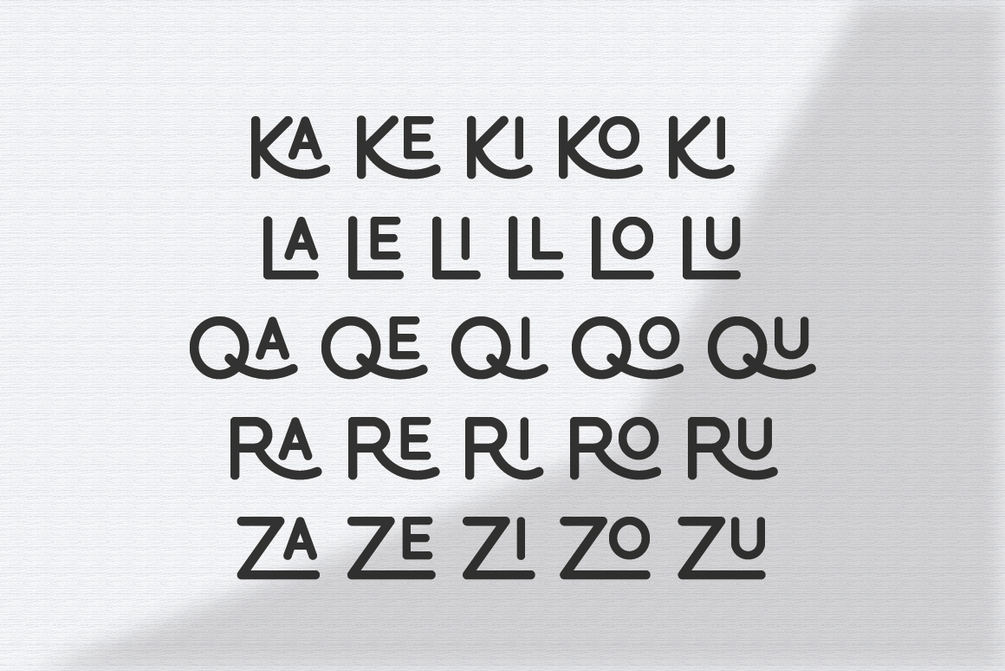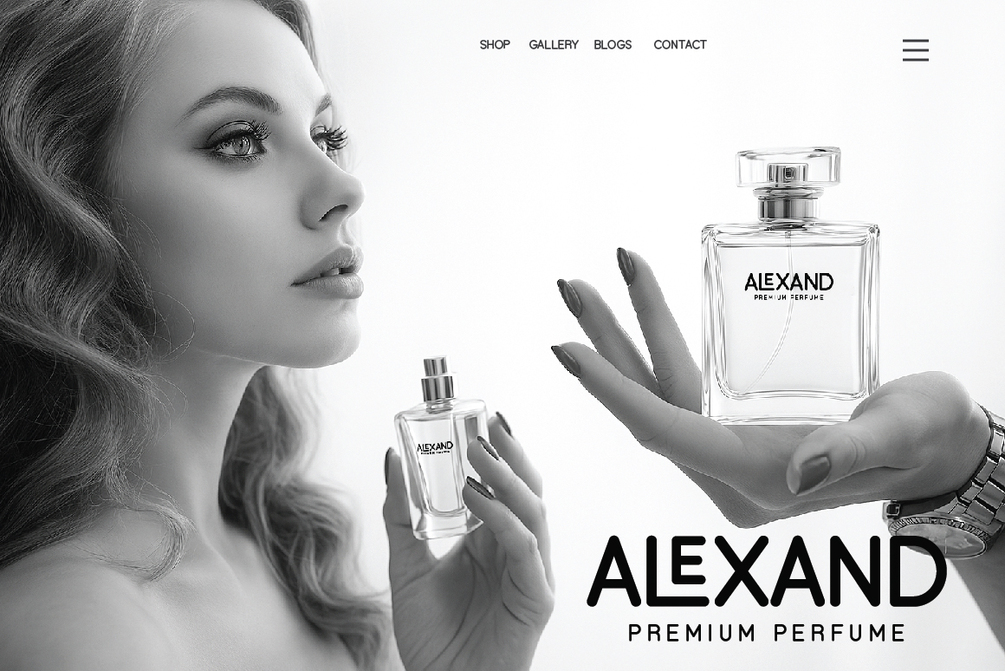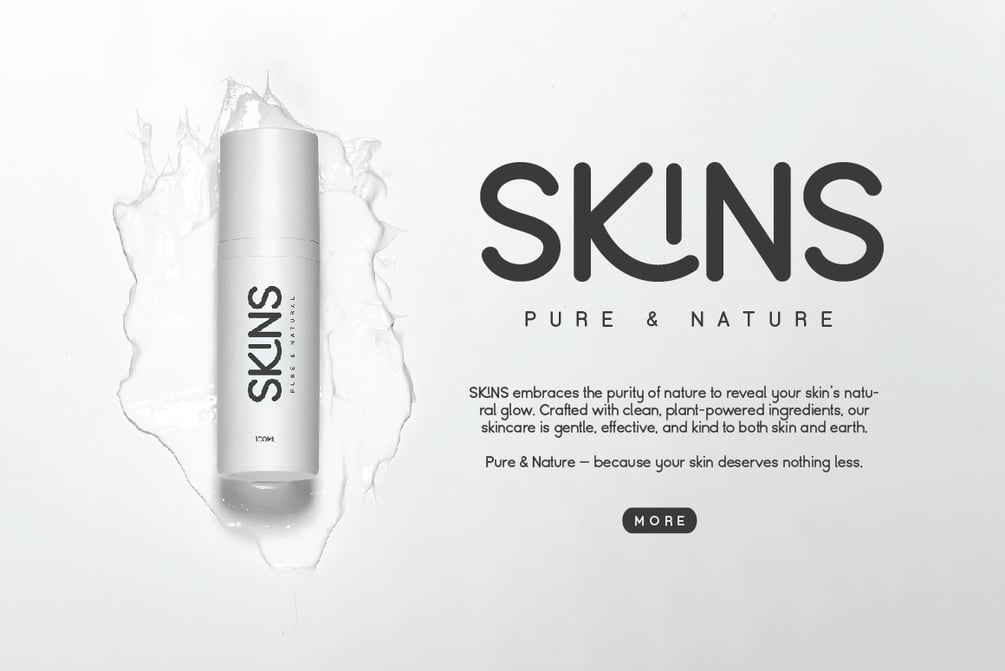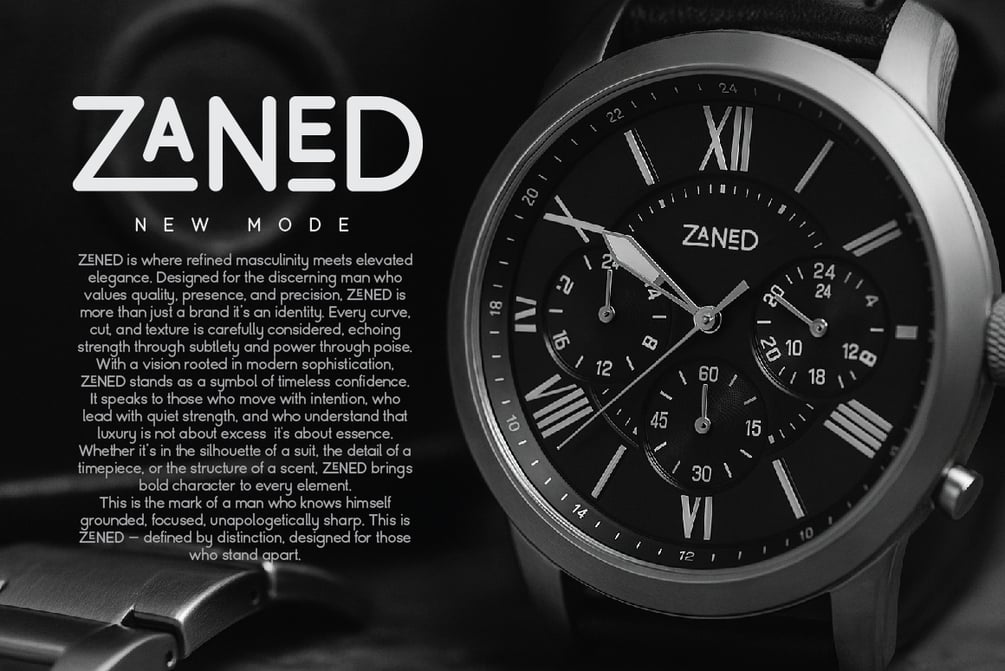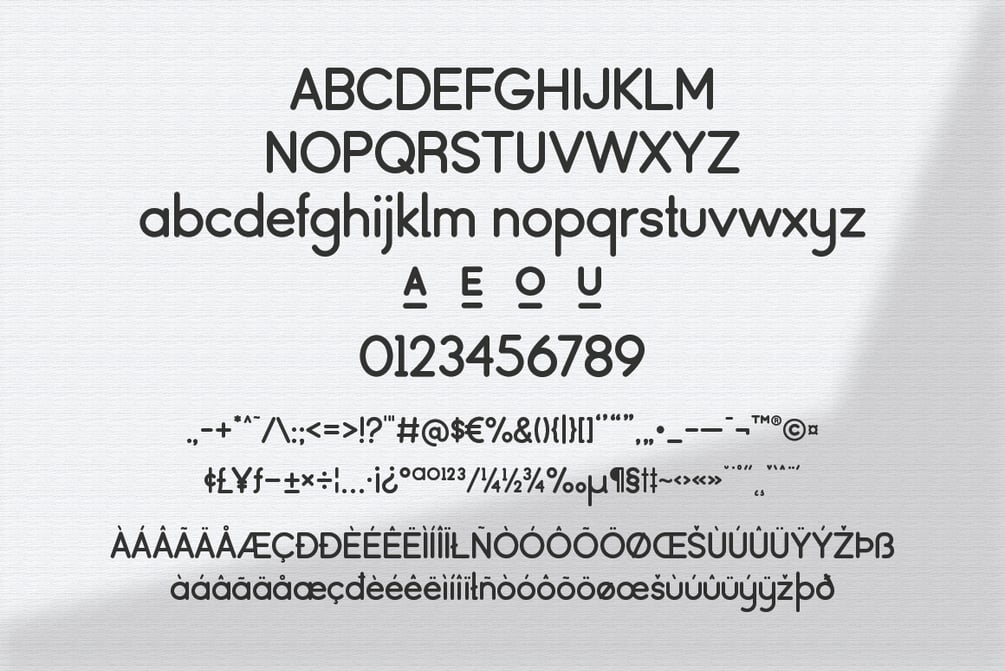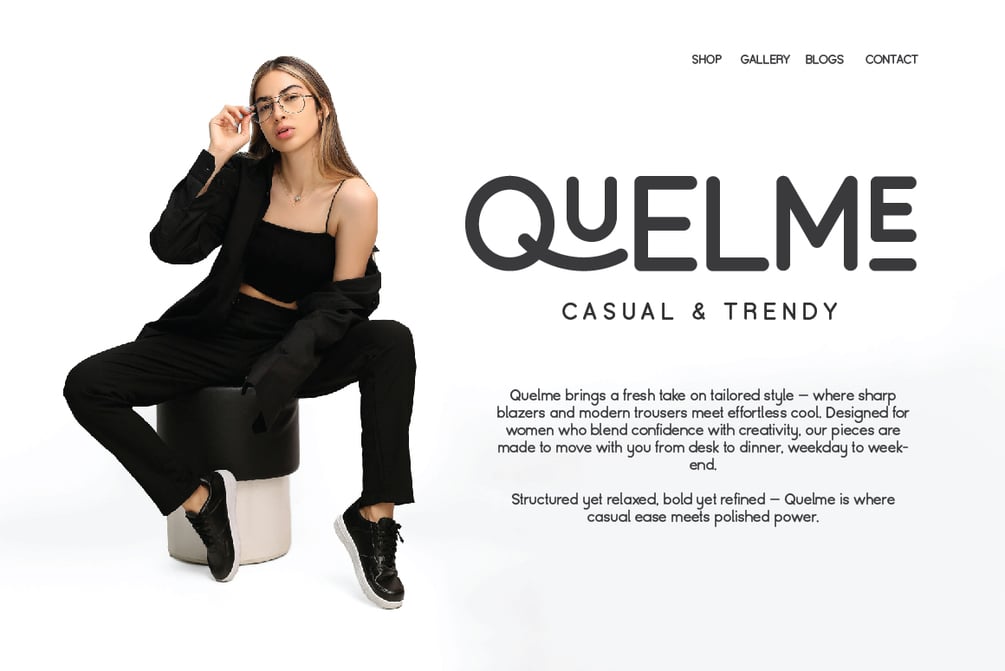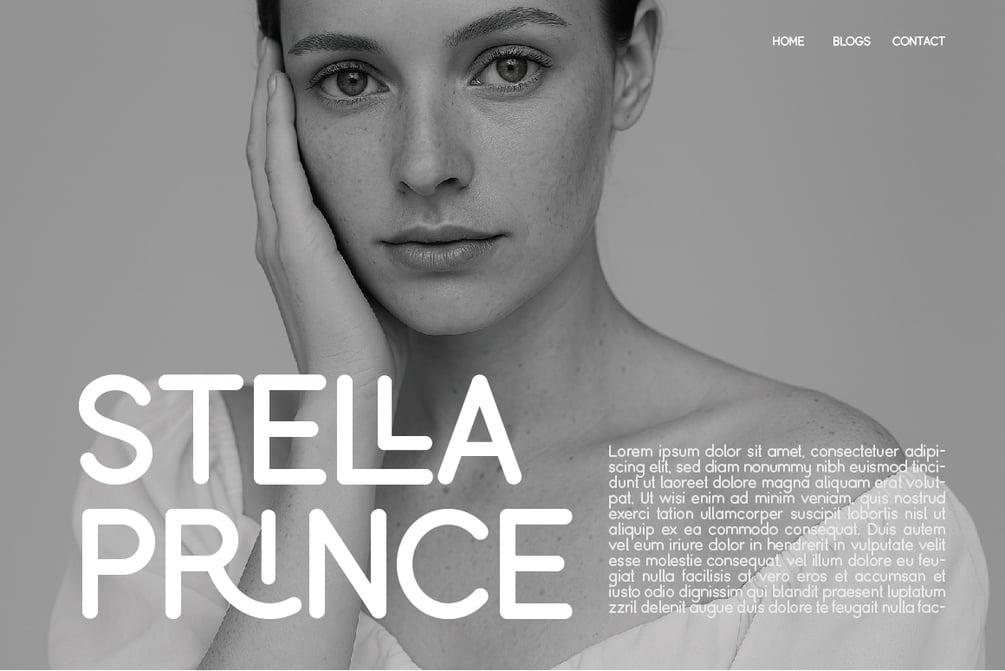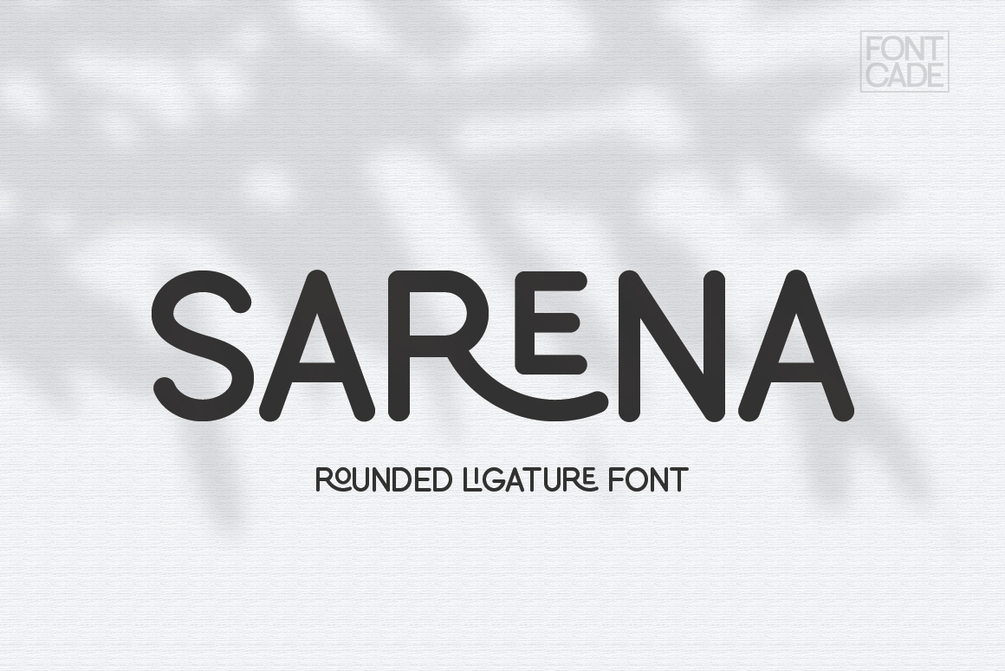
Sarena Font
Sarena is a rounded sans serif font with a modern and approachable feel. Featuring 26 unique ligatures, it offers plenty of creative possibilities for standout typography. Its clean and highly legible letterforms make it versatile for both digital and print use.
• All Caps, Numeral & Punctuation
• 26 Stylish Ligatures & (AEOU) Underlined Letters